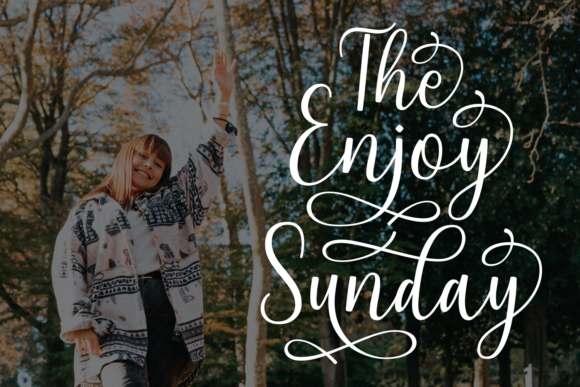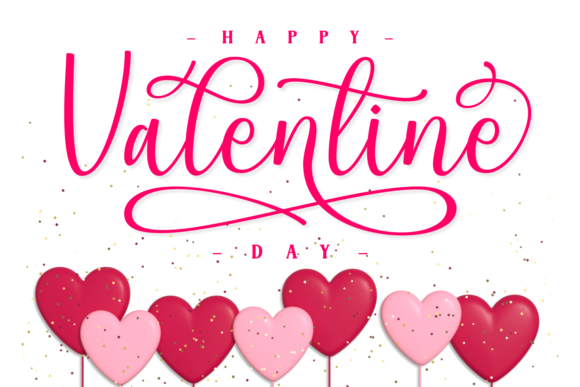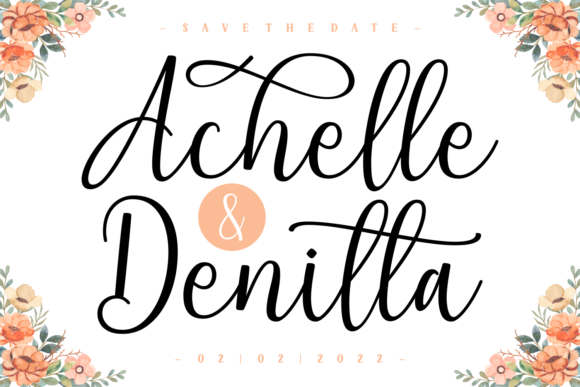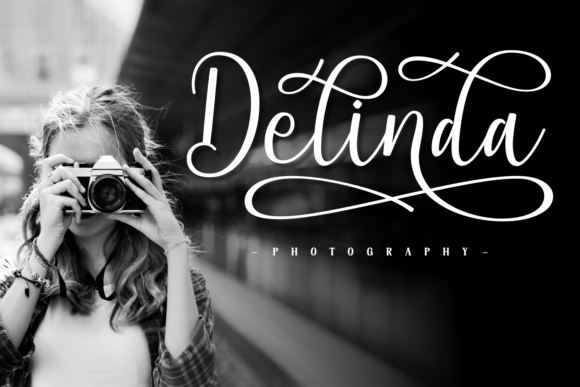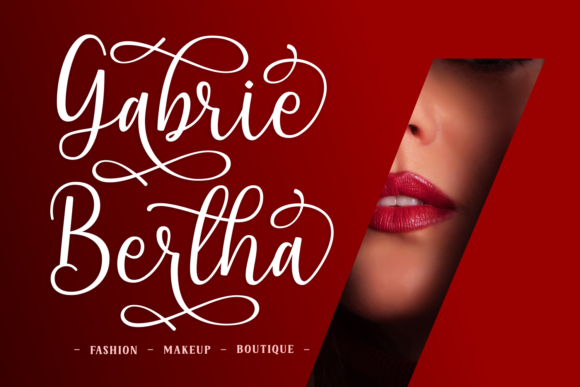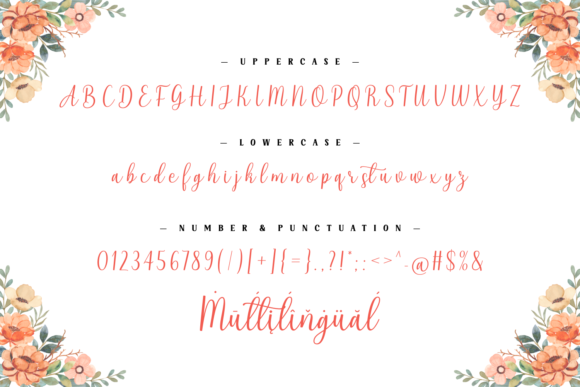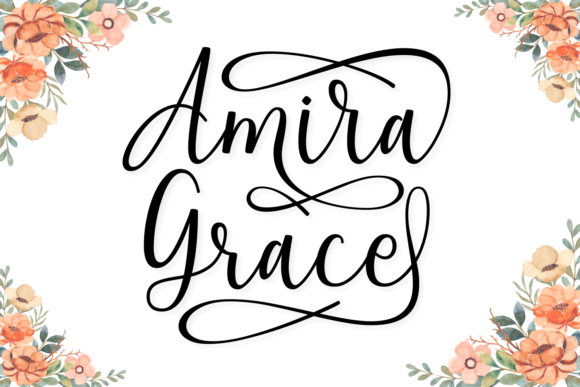
The Amira Grace Font: A Delicate yet Powerful Design Tool
I’ll never forget the moment I stumbled upon the Amira Grace font while working on a project for a client who wanted a elegant, flowing script to match their brand’s sophisticated personality. I had been searching for what felt like hours, trying out font after font, but nothing seemed quite right. That was until I saw Amira Grace – its delicate, thin letters and beautiful swashes immediately caught my eye. I knew right then and there that I had found the perfect fit.
An Honest Review of Amira Grace
• ✨ The font’s ravishing style, perfect for creating gorgeous designs that exude elegance and sophistication.
• ✅ PUA encoded, making it easy to access all glyphs and swashes.
• 💫 A wide range of OpenType features, including stylistic alternates and ligatures, to give your designs a unique touch.
• 📚 The font’s versatility – use it for anything from wedding invitations to branding materials.
While Amira Grace is an amazing font, there are a few things to keep in mind:
• ⚠️ Some of the swashes and glyphs can be a bit finicky to access, especially if you’re new to using OpenType features.
• 🤔 The font may not be the best choice for body text or long blocks of writing – it’s really designed to shine as a headline or accent font.
The Story Behind Amira Grace
While I couldn’t find any information on the actual designer of Amira Grace, it’s clear that they were inspired by the beauty of handwritten scripts and the elegance of traditional typography. The font’s creator likely spent countless hours perfecting the delicate lines, swashes, and glyphs that make Amira Grace so special.
A: PUA (Private Use Area) encoding is a way of mapping font glyphs to Unicode characters, making it easier to access and use them.
Q: Is Amira Grace a difficult font to use?
A: While Amira Grace does have some advanced features, it’s actually quite easy to use, even for beginners. With a little practice, you’ll be creating stunning designs in no time!